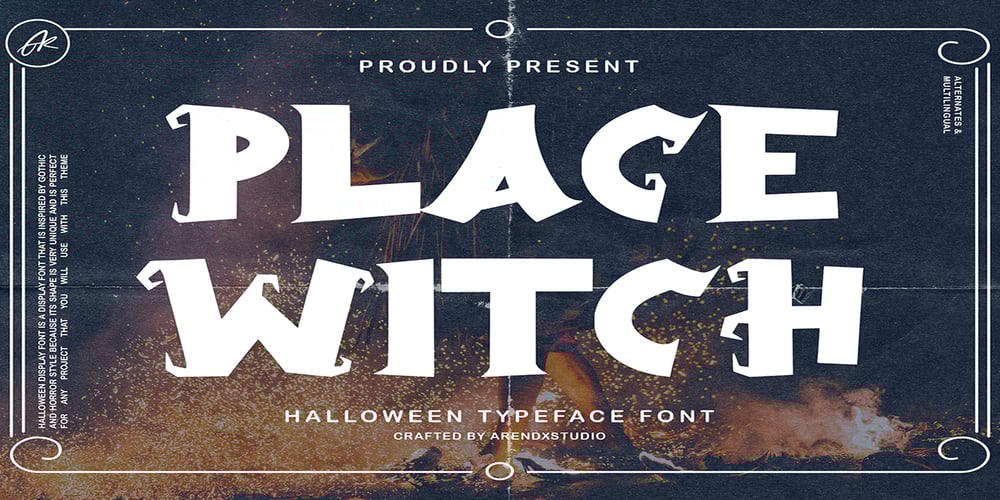
Place Witch Font Family was designed by Asep Rendi and published by Arendxstudio. Place Witch contains 1 styles and family package options. Place Witch is a thick lettered, cute and assertive display font. No matter the topic, this font will be an incredibly asset to your fonts’ library, as it has the potential to elevate any creation. Place Witch is PUA encoded which means you can access all of the glyphs and swashes with ease! Features :1.Uppercase & Lowercase 2.Multilingual support 3.Number 4.Symbol 5.Punctuation. 6.Alternate 7.Support in Mac and Windows OS -Support in design application (photoshop, illustrator, and more)There it is! I really hope you enjoy it – comments & likes are always welcome and accepted. More importantly, don’t hesitate to send a message if you have a problem or question.